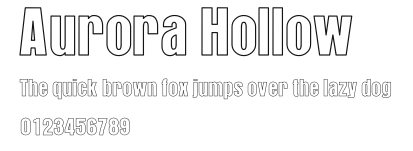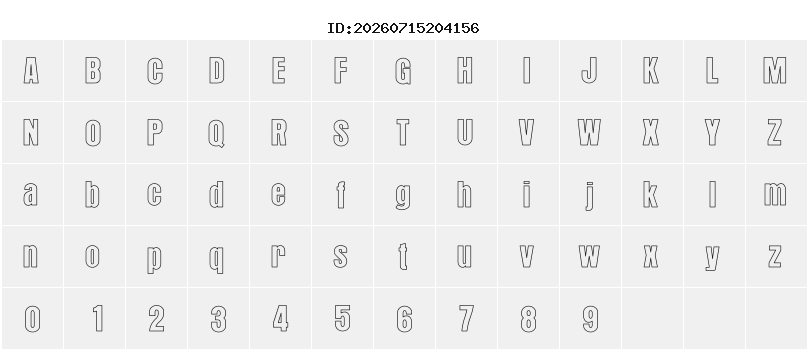
• Font Name: Aurora Hollow
About Aurora Hollow.ttf
Aurora Hollow.ttf is a modern, elegant sans-serif font designed for ultimate readability and visual harmony. Perfect for branding, headlines, web design, and print materials.